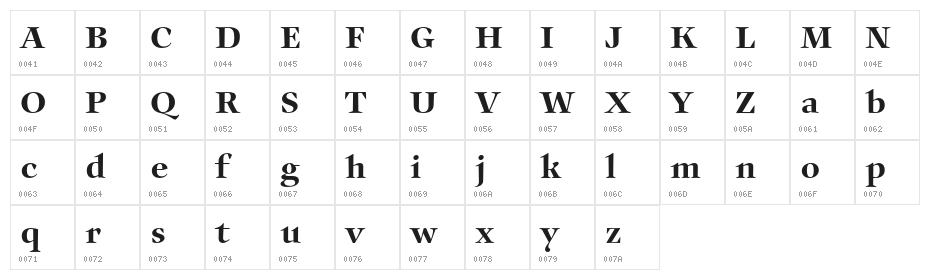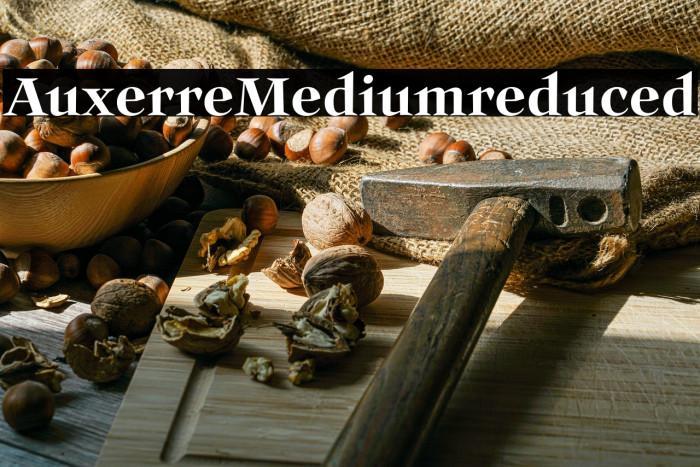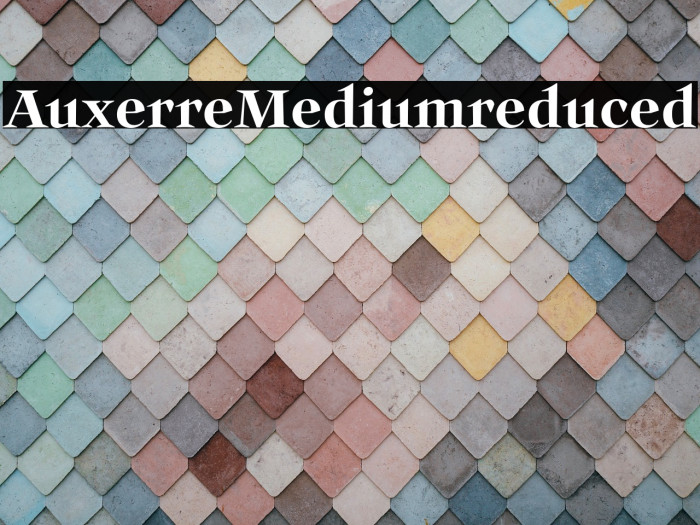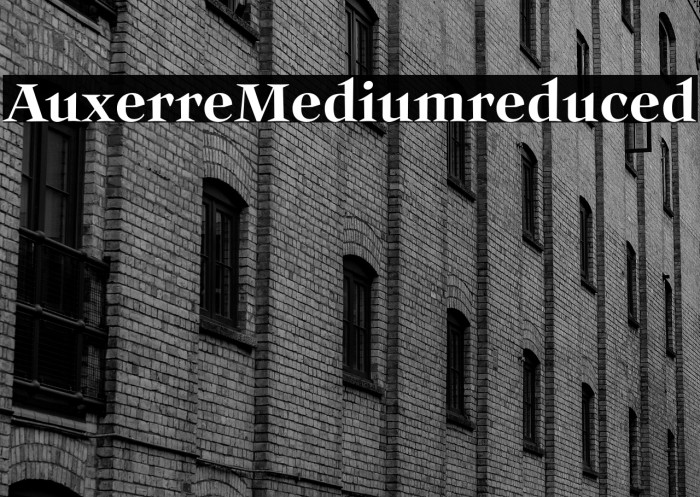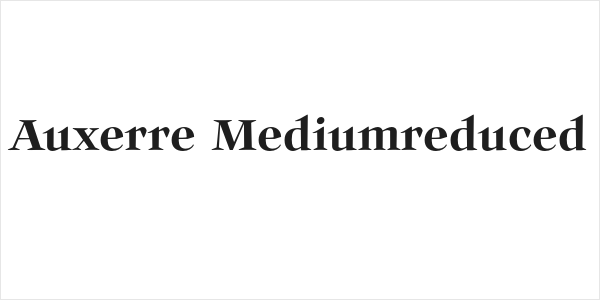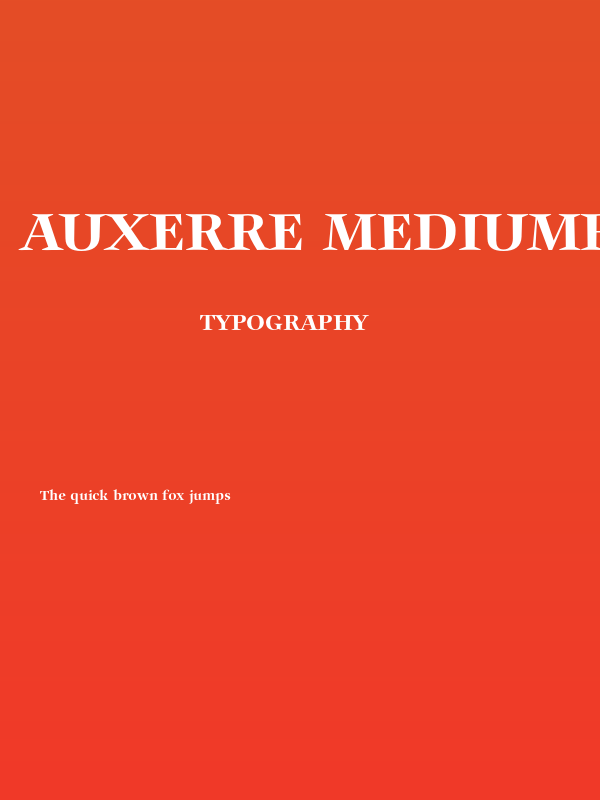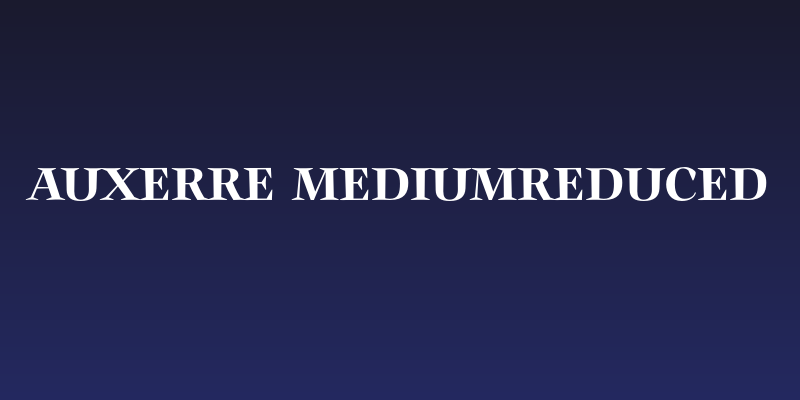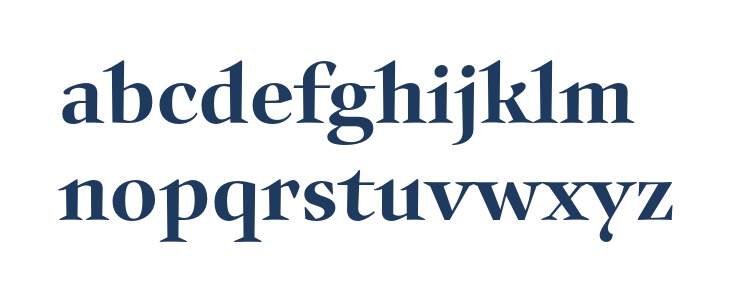
Auxerre-Mediumreduced Font
Auxerre-Mediumreduced Description
This font features a classic serif style with strong, bold strokes and a traditional appearance. The uppercase letters exhibit a commanding presence with sharp serifs and a balanced proportion, making them ideal for headings and titles. The lowercase letters maintain a consistent style, with slightly rounded edges that add a touch of elegance. The overall design is reminiscent of traditional print fonts, offering a sense of reliability and authority. The spacing between characters is normal, ensuring readability while maintaining a cohesive look. This font is well-suited for projects that require a formal and professional tone.
| Proposed Projects | Suitable for book covers, formal invitations, corporate branding, and editorial design. |